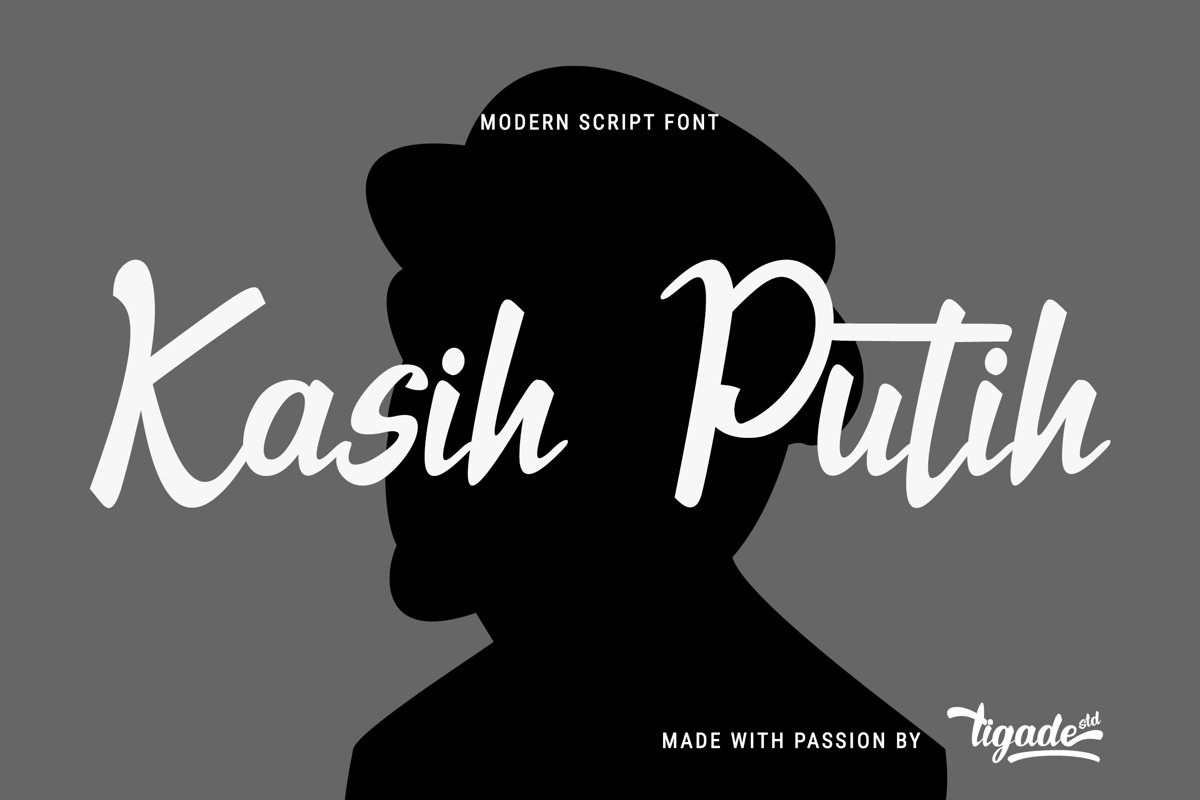
Kasih Putih - Gorgeous Script Font
Kasih Putih
Kasih Putih is a modern calligraphy font. It support common International Characters and come with set of alternates and ligatures. It is suitable for multiple projects from Printed products until Digital Products. It is nice to be printed on billboard, bottle or cup of drinking products as well as logo or design for apparel.